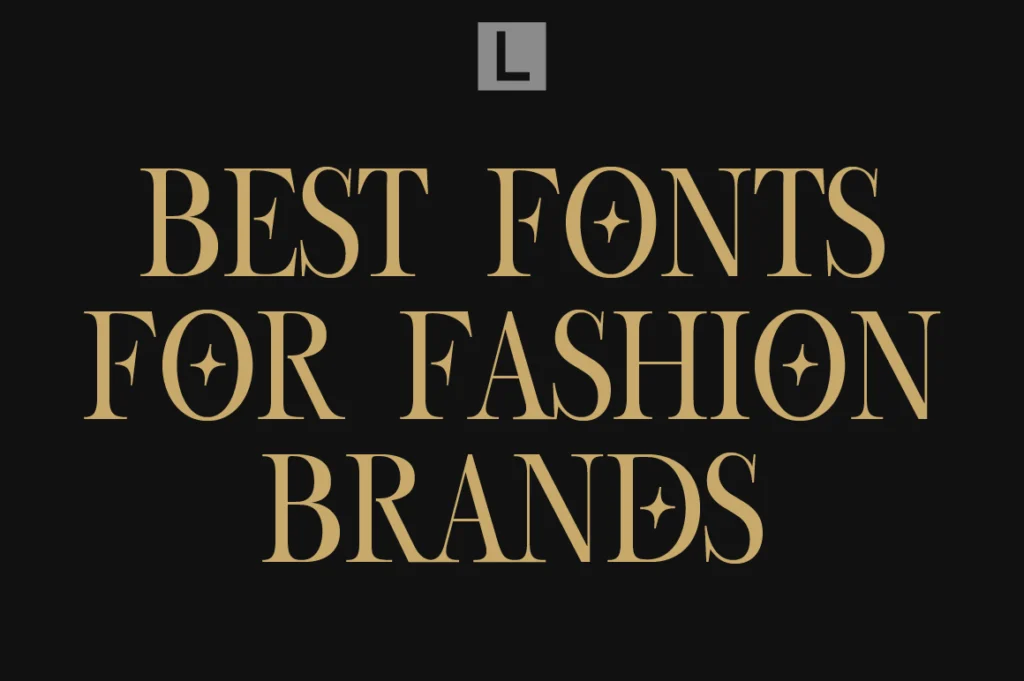
Best Fonts for Fashion Brands and Editorial Design
Best Fonts for Fashion Brands
Fashion brands rely heavily on typography to communicate elegance, exclusivity, and personality. Whether it’s a luxury label, beauty brand, magazine, or boutique, the right font helps create a memorable visual identity and strengthens the overall brand image.
Typography is often one of the first elements people notice. A carefully chosen font can instantly make a brand feel premium, modern, timeless, or sophisticated. That’s why many fashion houses and editorial publications invest heavily in typography as part of their branding strategy.
Why Typography Matters in Fashion Branding
Typography influences how customers perceive a brand. Fashion brands often aim to evoke feelings of luxury, creativity, and confidence. The right font style helps establish trust while reinforcing the brand’s personality.
Editorial typography also plays an important role in magazines, lookbooks, websites, and packaging. Fonts with elegant proportions and refined details can elevate a simple design into something visually striking.
Characteristics of Great Fashion Fonts
Fashion fonts are usually elegant, readable, and timeless. High-contrast serif fonts remain popular because they create a sophisticated and luxurious atmosphere. Modern sans-serif fonts are also widely used for minimalist and contemporary brands.
Good fashion typography should:
• Be easy to read.
• Feel premium and refined.
• Maintain a timeless appearance.
• Work consistently across print and digital media.
• Reflect the personality of the brand.
Popular Font Styles for Fashion Brands
Modern serif fonts are among the most popular choices for luxury fashion and editorial projects. Their refined curves and dramatic contrast create an upscale appearance often associated with premium magazines and designer labels.
Minimal sans serif fonts are preferred by modern and minimalist brands. Their clean structure provides clarity and versatility across packaging, websites, and social media.
Script fonts are commonly used for signature logos, beauty brands, and boutique businesses because they add personality and elegance.
Best Fonts for Editorial Design
Editorial projects require typography that balances style and readability. Magazines, lookbooks, brochures, and luxury websites benefit from fonts that create strong visual hierarchy while maintaining a sophisticated feel.
High-quality editorial fonts are especially useful for:
• Magazine covers
• Fashion lookbooks
• Beauty product packaging
• Social media campaigns
• Premium websites
• Branding materials
Recommended Fonts for Fashion Branding
Several fonts from Lettertype Studio work particularly well for fashion and editorial projects.
Lucentia offers elegant serif details with a timeless luxury appearance.
Montegar delivers a refined editorial style suitable for magazines and premium branding.
Becaure combines sophistication and readability, making it ideal for logos and packaging.
Elfariany Duo provides a versatile combination for branding, social media, and beauty businesses.
Tips for Choosing Fashion Fonts
Always prioritize readability and consistency. Avoid using overly decorative fonts that may reduce legibility. Choose typography that aligns with your brand personality and ensure it performs well across websites, packaging, advertisements, and printed materials.
Maintaining consistent typography throughout your visual identity helps customers recognize your brand and creates a stronger impression over time.
Conclusion
The best fonts for fashion brands and editorial design combine elegance, readability, and timeless appeal. Whether you’re building a luxury label, creating a magazine layout, or designing premium packaging, choosing the right typography helps communicate quality and establish a memorable brand identity.